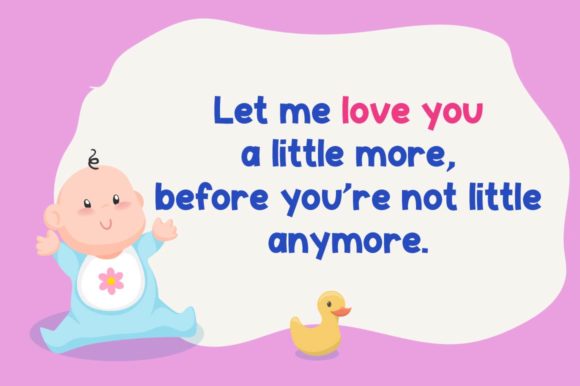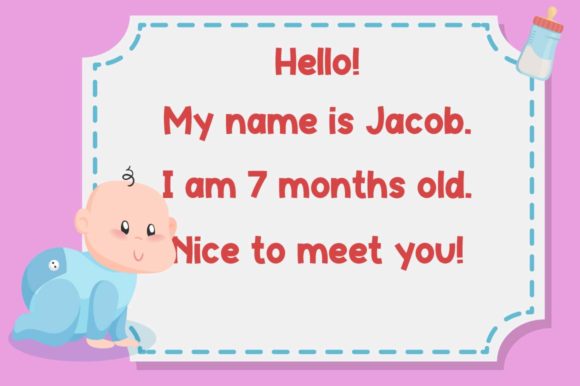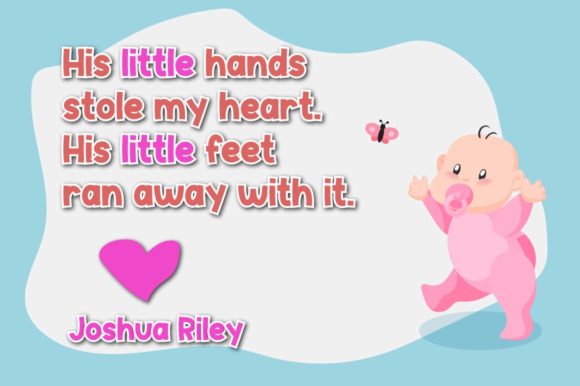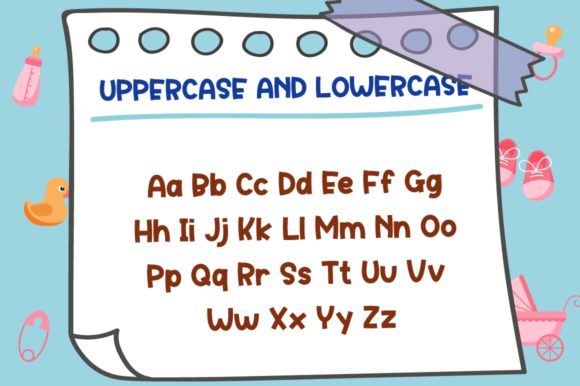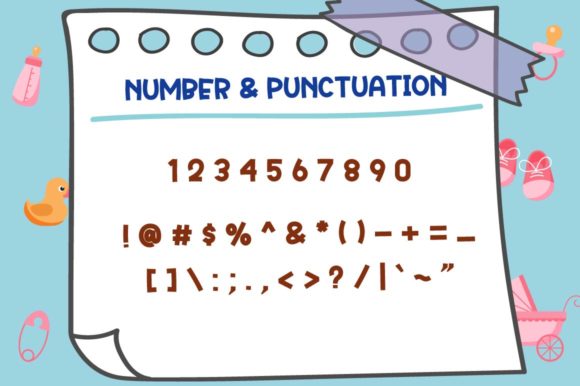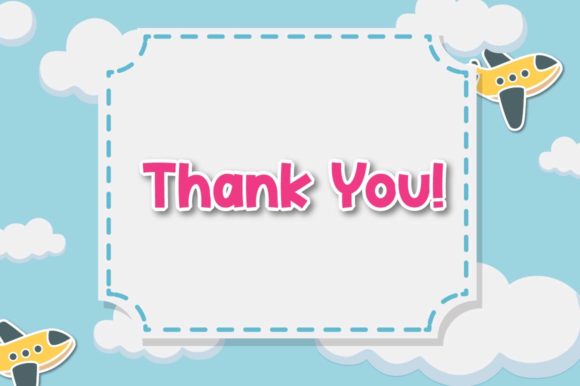
Introduction to Baby’s Dream Font
Baby’s Dream is a cute and quirky font.
This enchanting display font will turn any creative idea into a true standout .